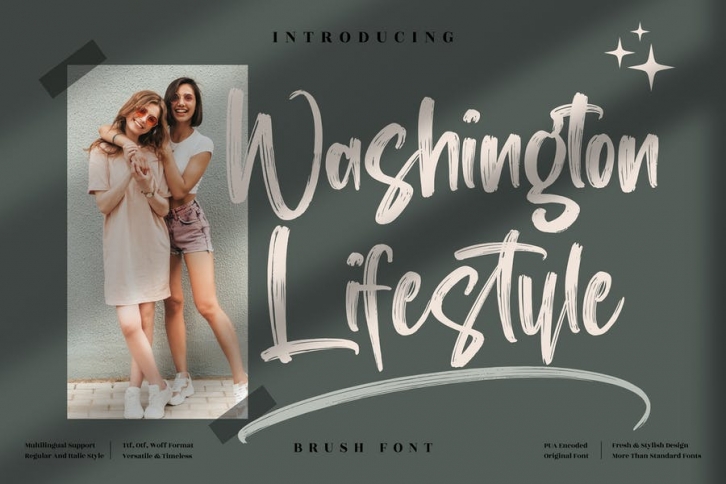
Hi ladies & gentlemen, this is one of our fonts suitable to complement your digital and printed creative products. This font is perfect for posters, social media posts, branding, personal projects, etc.